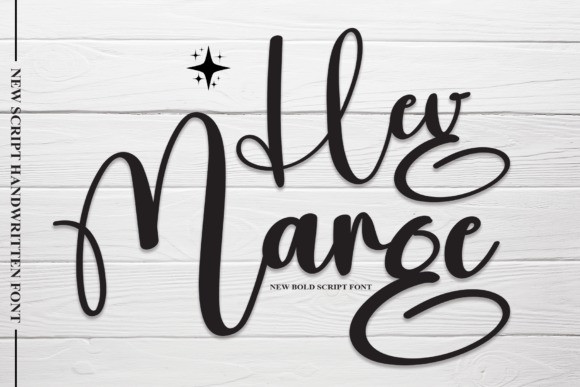
Hey Marge Font
Hey Marge Font is a bold, and thick font that will help you create fun and playful designs and will look good on a variety of branding and packaging projects. This chubby font features the perfect combination of fun and creativity to instantly grab anyone’s attention.